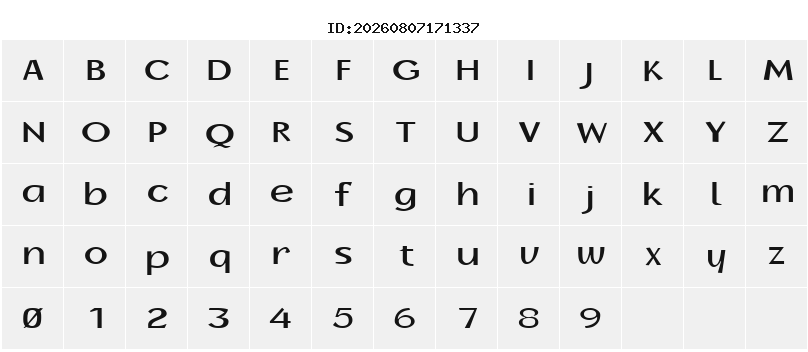
• Font Name: Oak-Ridge-Extended
Oak-Ridge-Extended.ttf is a modern, elegant sans-serif font designed for ultimate readability and visual harmony. Perfect for branding, headlines, web design, and print materials.